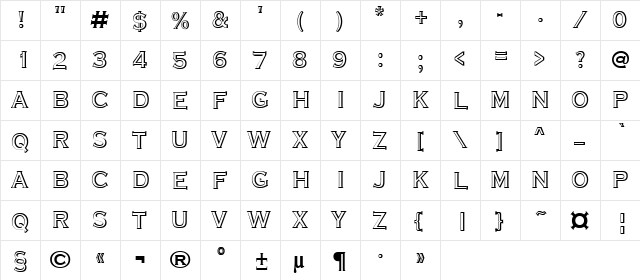
a_CopperGothTitulSh Regular
Design Context for a_CopperGothTitulSh Typeface
a_CopperGothTitulSh is a composed and adaptable typeface that performs quietly and consistently across a wide range of design contexts.